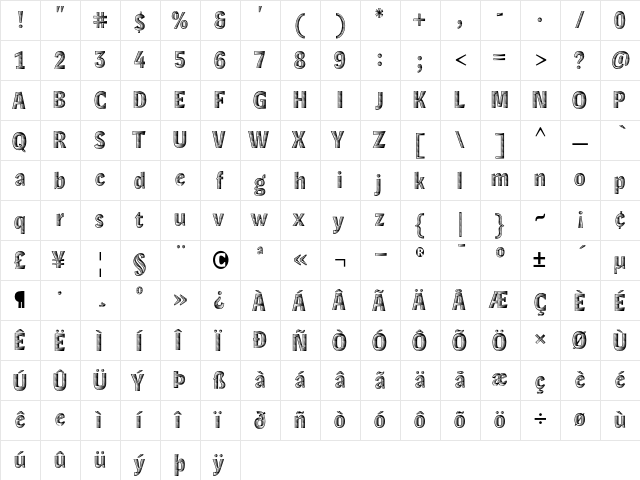
Lexicon Headline Xylo Regular
| Foundry | Frantisek Storm |
| Designer | Frantisek Storm |
Design Context for Lexicon Headline Xylo Typeface
Lexicon Headline Xylo is a composed and adaptable typeface that performs quietly and consistently across a wide range of design contexts.